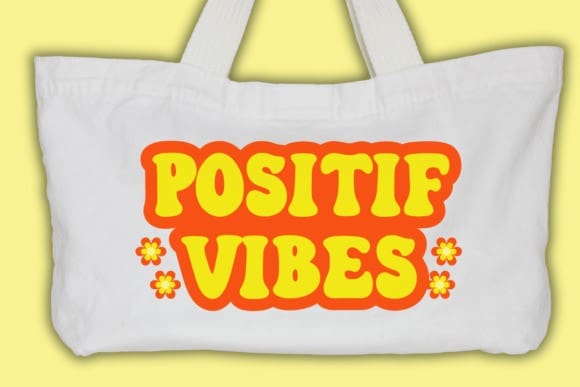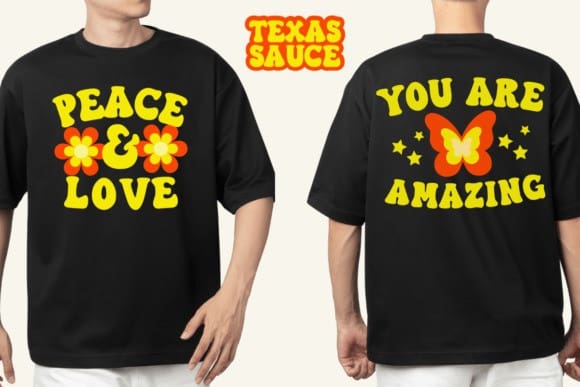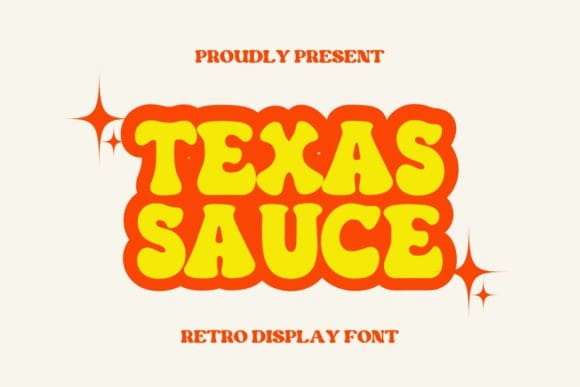
Texas Sauce Font
Texas Sauce Font is a unique and interesting display font. A little bit quirky, this font looks incredibly adept on a wide variety of contexts!